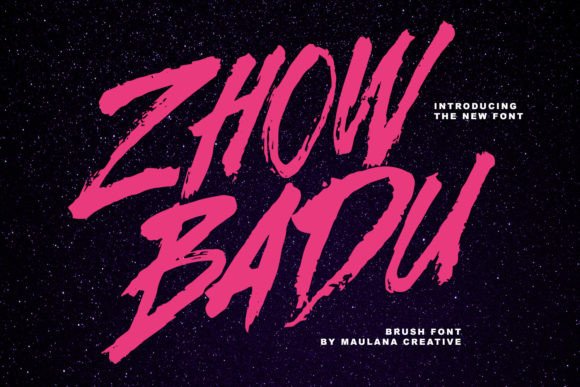
Introducing Zhow Badu Font, the ultimate choice for all your religious text needs! Created by the talented Maulana Creative, this script font is here to revolutionize your designs and give them an authentic handcrafted feel.
With Zhow Badu Handmade Brush Font, you can effortlessly add a touch of elegance and uniqueness to your signature, stationery, logo, and typography quotes. Its exquisite craftsmanship makes it ideal for magazine or book covers, website headers, clothing, branding, packaging design, and so much more.
Why settle for ordinary when you can embrace the extraordinary? Zhow Badu Font brings a captivating charm to your creations, making them stand out from the crowd. Its carefully crafted brush strokes exude personality, adding depth and character to every letter.
Imagine your religious text beautifully adorned with Zhow Badu Font, radiating a sense of divinity and reverence. This font is meticulously designed to capture the essence of spirituality, making it the best choice for religious publications, inspirational quotes, and spiritual websites.
Not only does Zhow Badu Font captivate the eye, but it also sparks emotions within the reader. Its elegant curves and fluid lines create a harmonious flow, evoking feelings of peace, serenity, and tranquility. Let your audience immerse themselves in the profound messages of your designs, guided by the captivating power of this font.
Crafted with precision and care, Zhow Badu Font is a testament to Maulana Creative's commitment to excellence. Every detail has been meticulously perfected to ensure a seamless and awe-inspiring experience for both the creator and the viewer.
Experience the magic of Zhow Badu Font – your gateway to creating impactful and unforgettable designs that leave a lasting impression. Step into a world of beauty, artistry, and inspiration with this remarkable font.